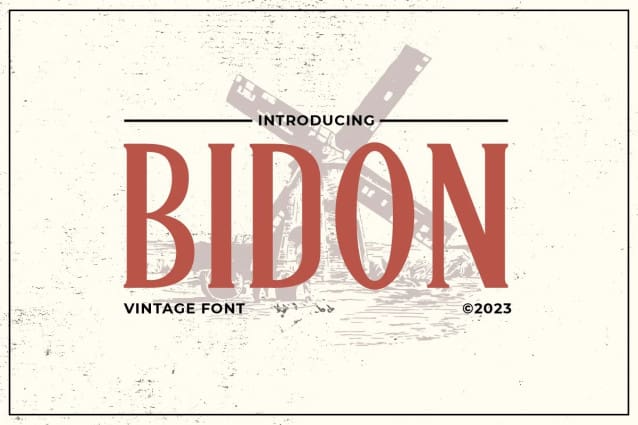
Bidon Font
Bidon Font – bold letterforms and medium contrast give any text a smooth. Small variations and human touches add charm, with Quincy’s boldest weights especially strong as large and medium display type.
Every letter has been thoughtfully refined and rebalanced, kerning and language support improved, and overall appearance enhanced with a smoother, flowing, unified new look.